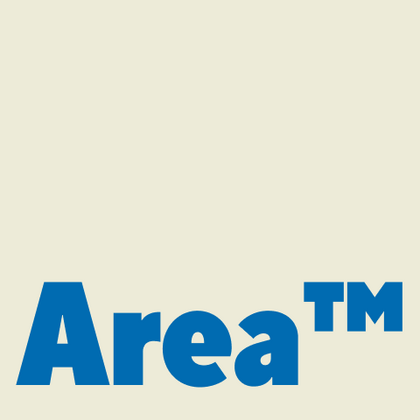
Fonts similar to Area
Modern projects require sans serifs with clear geometry and versatility, as well as individuality. The TypeType collection features professional fonts that can replace Area™ in your work. Alternative fonts from TypeType are suitable for various design tasks: corporate identity and branding, web design and interfaces, printed products, or advertising materials.
If you are tired of overused typefaces and are looking for fonts similar to Area, check out our best free-to-try Area alternatives, which have similar characteristics as well as new, unique design features. Some of the fonts belong to the same type category, and others are suitable for the same tasks or have similar traits but stand out for their distinct details or proportions.
Find a great Area replacement font and try to recreate a similar mood and capture the feeling you aim for by using it in your designs. Each font presented on this page is a twin of the Area font, practically identical to it.
TT Firs Neue is a contemporary reincarnation of the good old TT Firs sans serif.
TT Travels Next is a very trendy and modern wide display sans serif for use in different sets, be they print or web.
TT Octosquares is a fresh, revised, expanded, and significantly improved version of our first commercial font TT Squares & its narrow version.
TT Travels Text is a geometric grotesque with wide proportions and specific shapes of circles and fillets, which includes two stylistic sets with completely different natures.
TT Carvist—peculiar, playful, and courageous—this font does an excellent job of grabbing attention!
We have released a brand-new font. Meet TT Firs Text—a geometric sans serif with a Nordic character!
The starting point of the TT Trailers project was the idea to develop a new generation of narrow typefaces for use in movie credits and posters.
TT Prosto Sans is a font family for any tasks. You can use this font almost everywhere.